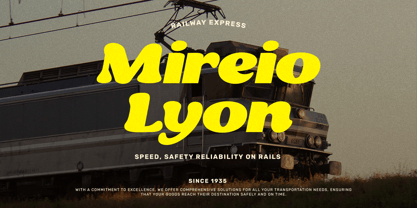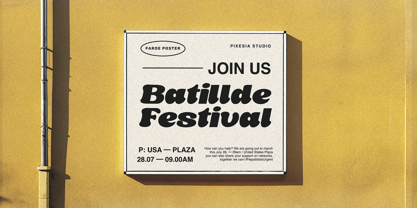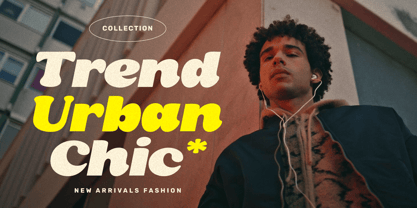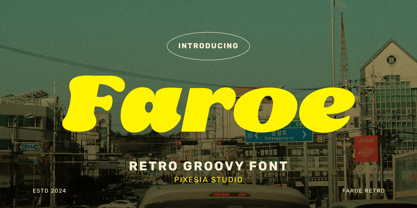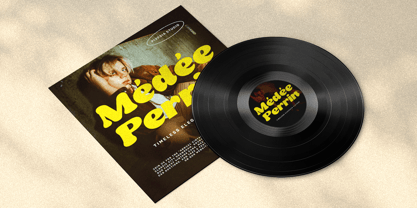
Faroe
by Pixesia Studio
Introducing Faroe - Retro Groovy Serif Font
Faroe is a retro groovy serif font that captures the essence of vintage style with a modern twist. Its bold, rounded letterforms and playful curves bring a touch of nostalgia and charm to any design.
Faroe is perfectly suited for branding, logotype, social media posts, headlines, logo, greating card, advertising, product packaging, label, photography, watermark, t-shirt, website design, invitation, stationery and any projects seeking a hint of retro sophistication.
FEATURES
- Uppercase and Lowercase letters
- Numbering and Punctuations
- Multilingual Support including Afrikaans, Albanian, Basque, Catalan, Danish, Dutch, English, Estonian, Faroese, Filipino, Finnish, French, Galician, German, Icelandic, Indonesian, Irish, Italian, Malay, Norwegian Bokmål, Portuguese, Spanish, Swahili, Swedish, Zulu